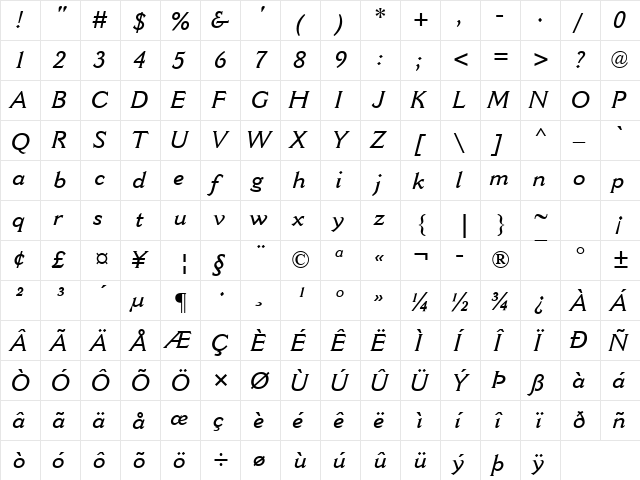
Cantoria MT SemiBold Italic Font Preview
Design Context for Cantoria MT SemiBold Typeface
Cantoria MT SemiBold is a composed and adaptable typeface that performs quietly and consistently across a wide range of design contexts. The dynamic lean of this cut emphasises speed and emphasis in any layout. The heavy weight commands attention and anchors typographic hierarchies.
Pro Tip: Try Cantoria MT SemiBold for annotation and caption copy alongside an upright companion — the contrast in angle creates a dynamic but ordered typographic system.